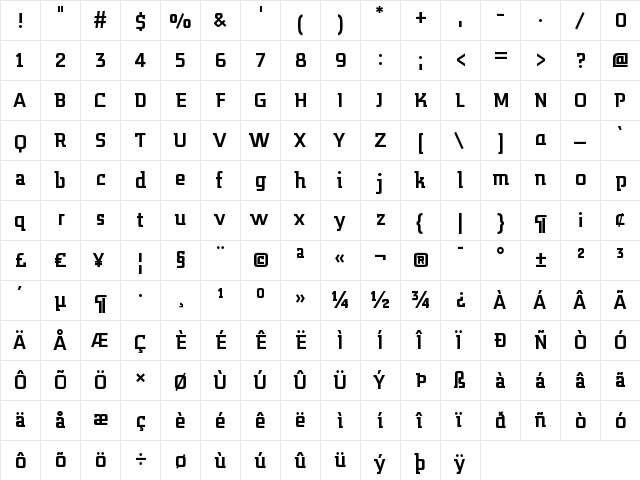
MidnightKernboy Bold Font Preview
MidnightKernboy Bold
Design Context for MidnightKernboy Typeface
MidnightKernboy is a composed and adaptable typeface that performs quietly and consistently across a wide range of design contexts. Its bold stroke weight gives it real presence on the page.